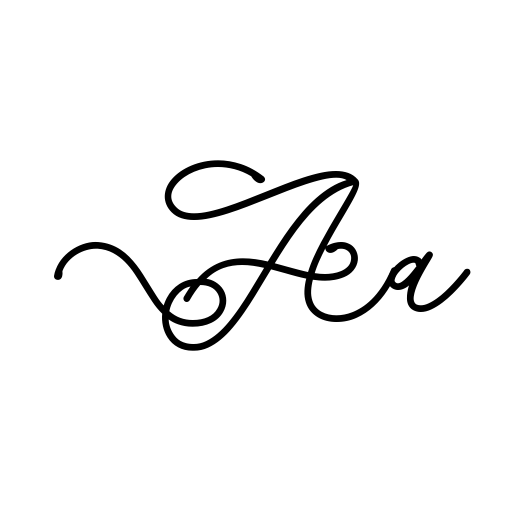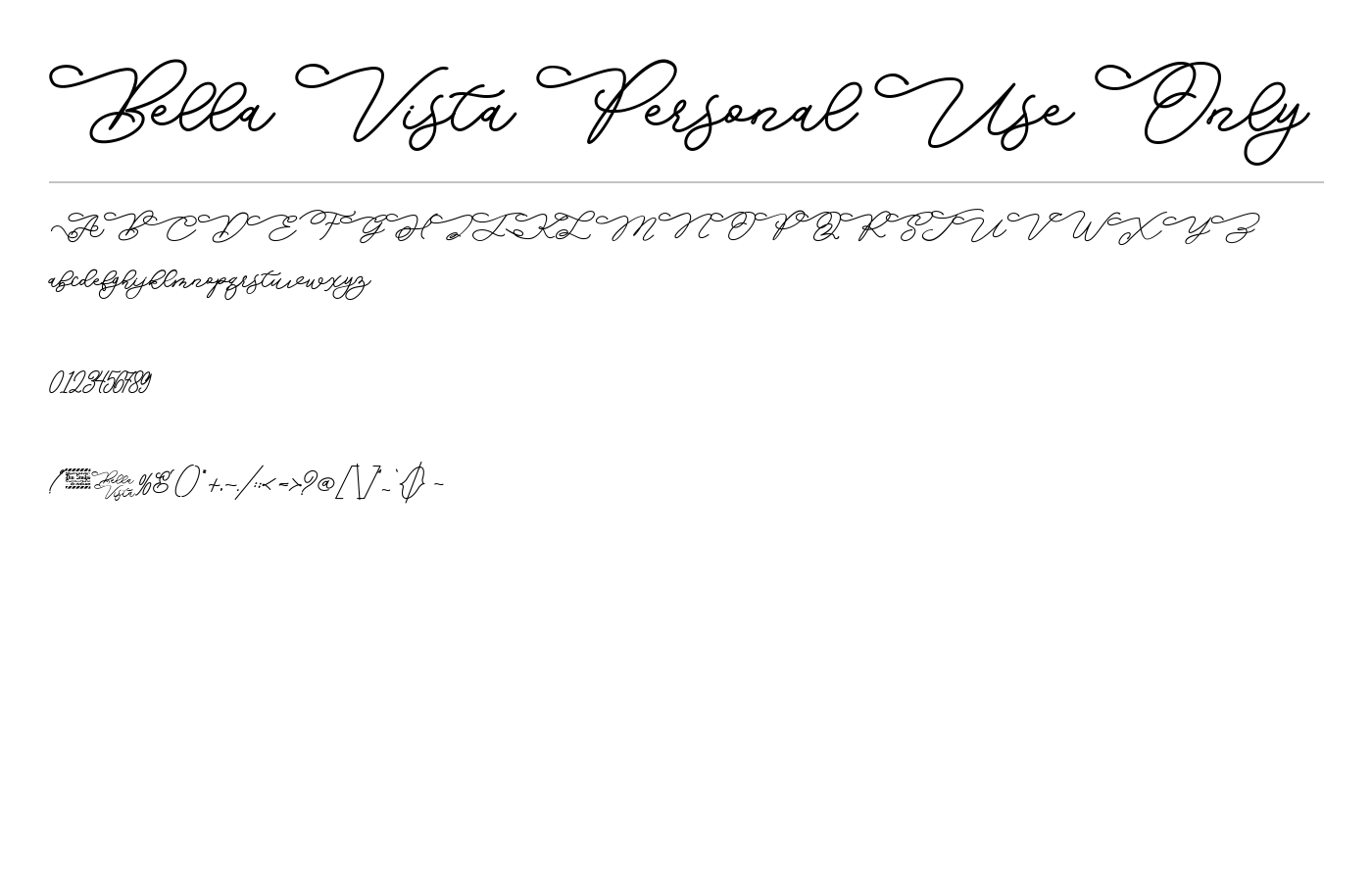
Bella Vista Personal Use Only is an elegant, thin script font with delicate, flowing strokes that emulate graceful handwriting. Its slender, airy letterforms and refined swashes give it a sophisticated, romantic feel, making it perfect for invitations, branding, and decorative accents where a touch of elegance and personal charm is desired. This font works best in design projects that require a soft, artistic, and handwritten aesthetic.
Bella Vista Personal Use Only Font
About Bella Vista Personal Use Only Font